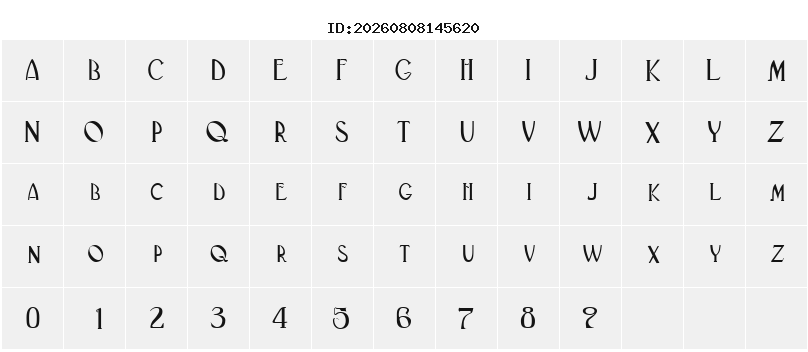
PoimenSCapsSSK Preview
• Font Name: PoimenSCapsSSK
• Font ID: Altsys Metamorphosis:PoimenSCapsSSK Regular
• Full Font Name: PoimenSCapsSSK Regular
• Version: Altsys Metamorphosis:8/23/94
• PostScript Name: PoimenSCapsSSK
• Character Count: 228
About PoimenSCapsSSK.ttf
PoimenSCapsSSK.ttf is a modern, elegant sans-serif font designed for ultimate readability and visual harmony. Perfect for branding, headlines, web design, and print materials.